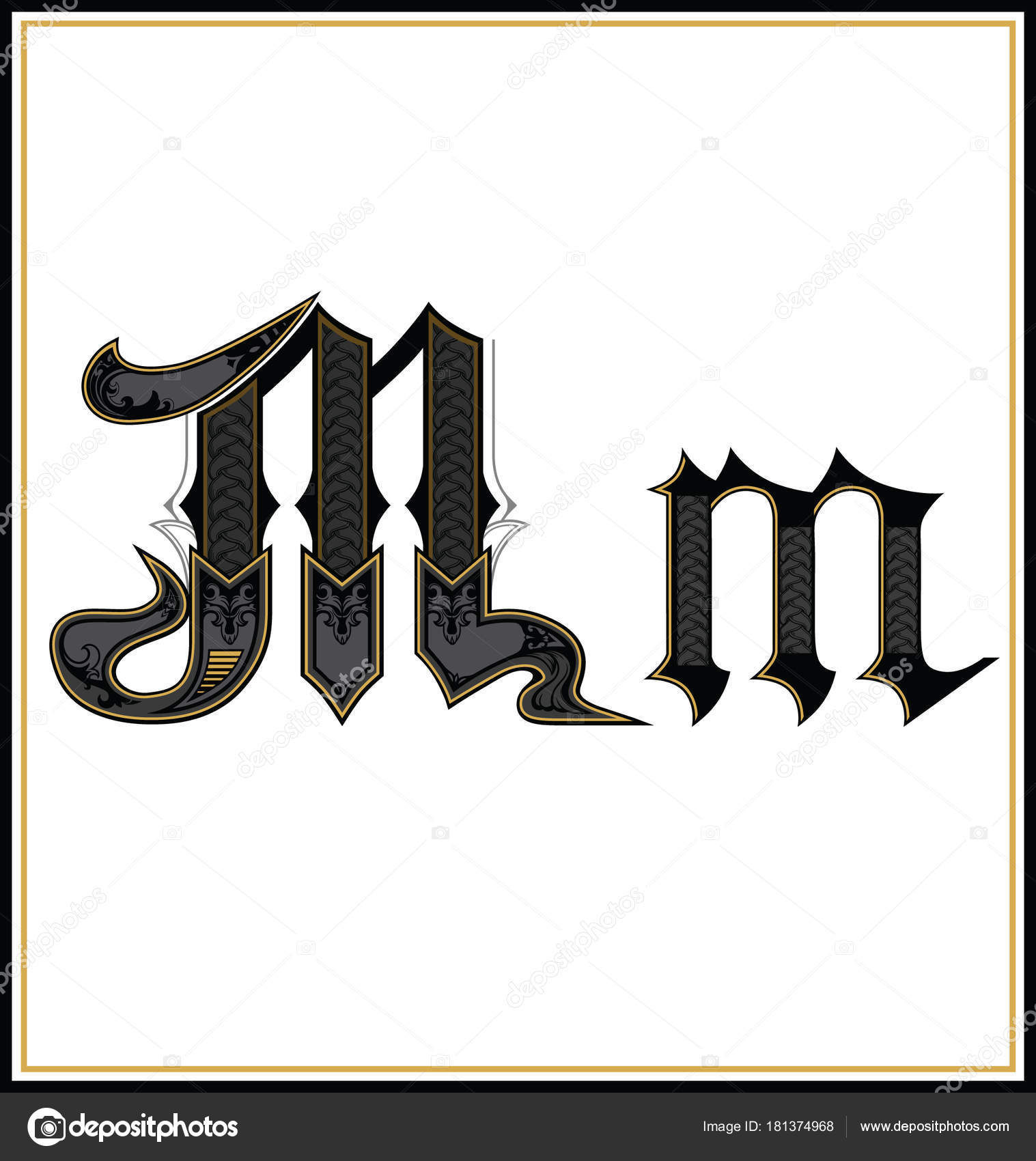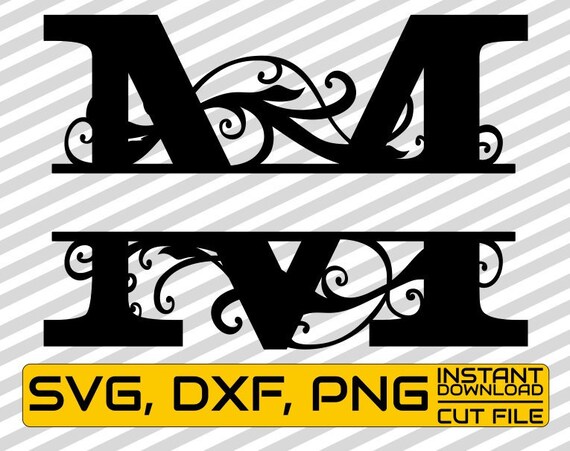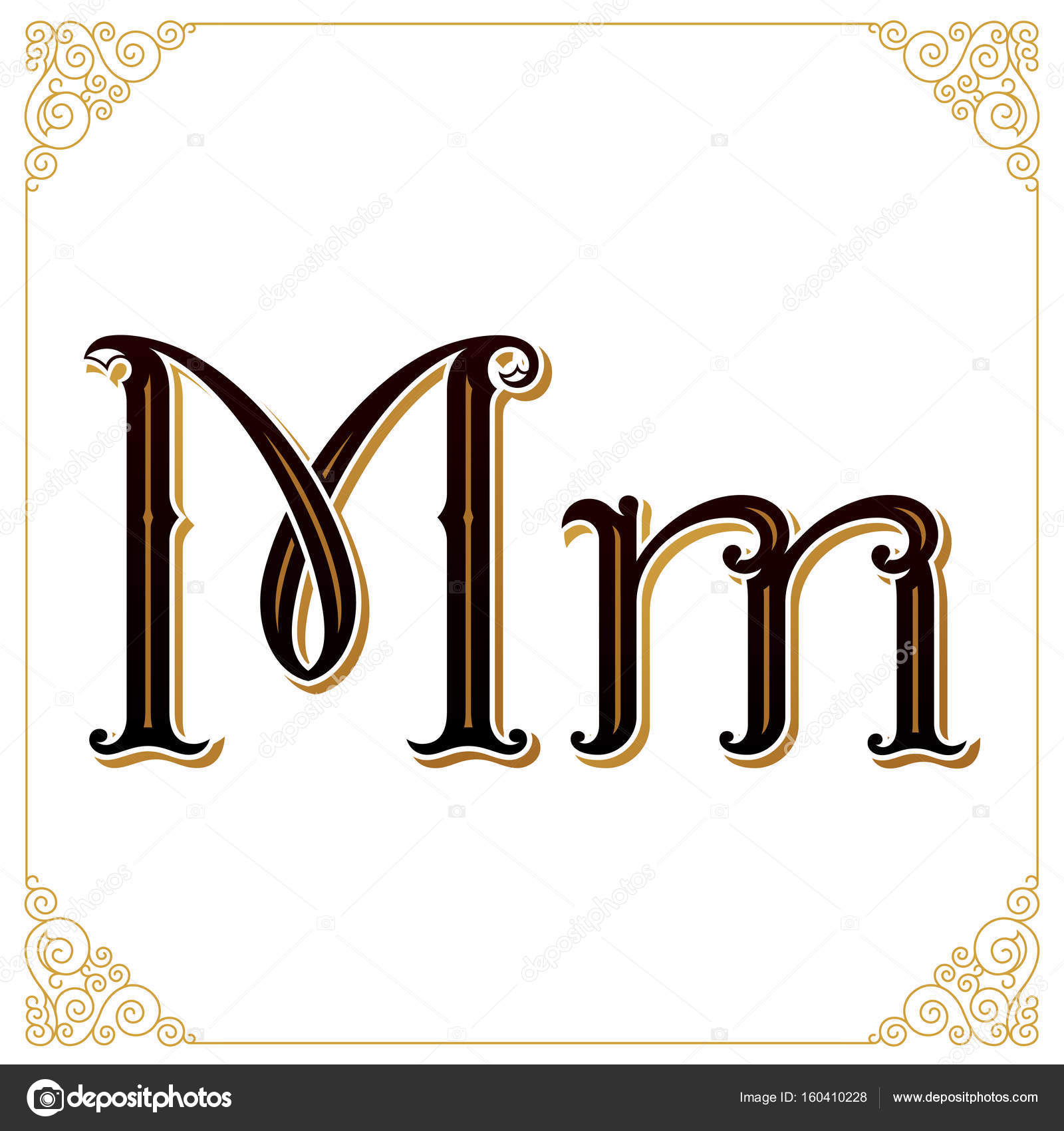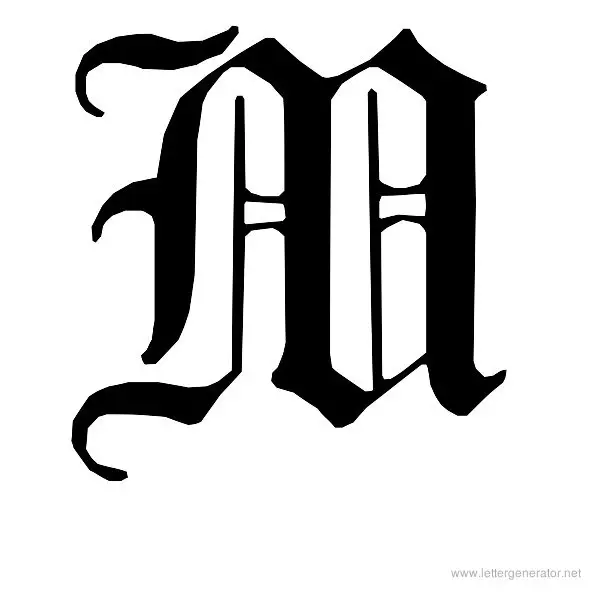
The font used for this specific Fancy. Free Printable Fancy Calligraphy Alphabets.
Calligraphy letter m font. Coincidentally these can form the word nurse and below is an example of how it looks filled with a gradient. Simple elegance initial letter m gold logo type vector. This calligraphy font style suits everything from wedding invitations to custom T-shirts.
Humaira is a modern calligraphy font that has lots of flair. You can also choose custom font and background colors. Illustration of font black letter - 115381365.
After repeating a bunch of them over and over I realized my favorite ones were e n r s u and of course letter m from my main pages of May spread. List of styles and samples in. 6 rows Beautiful calligraphy writing in alphabet M letters.
They often look as if they were drawn with flat-tipped pens or brushes. How to text with calligraphy font letters Use the input field above to type in your message. Calligraphy fonts resemble elegant handwriting.
Burgues Script created by Alejandro Paul is a typical font family of calligraphy style. Below weve rounded up some of the top cool calligraphy fonts on the site in 2020. Calligraphy lettering script font m set hand vector.
Capital letter m for monograms emblems and logos vector. Bullet Journal Inspiration Fonts To Copy Full Alphabet Letter And Fonts Handwriting Calligraphy Fans Bullet Journal Font Lettering Alphabet. Each letter looks like a flourish from a master calligrapher.
Illustration about Calligraphy lettering script font M set hand written signature letter design vector illustration. We hope you enjoy using our Online Calligraphy Font. The height of calligraphy was reached in the middle age where monks developed the narrow writing style called gothic allowing more words to fit on a single line as paper was expensive at the time.